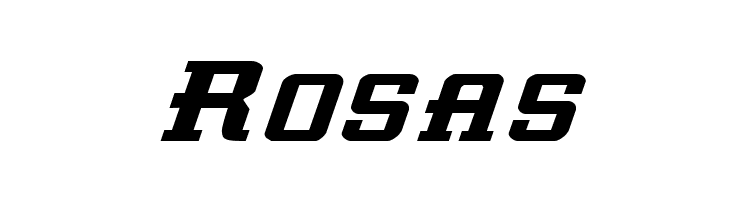
Fireye GF 3 Headline Condensed Font
- Font: Fireye GF 3 Headline Condensed
- Weight: Condensed
A bold, italicized font with sharp angles and a dynamic presence.